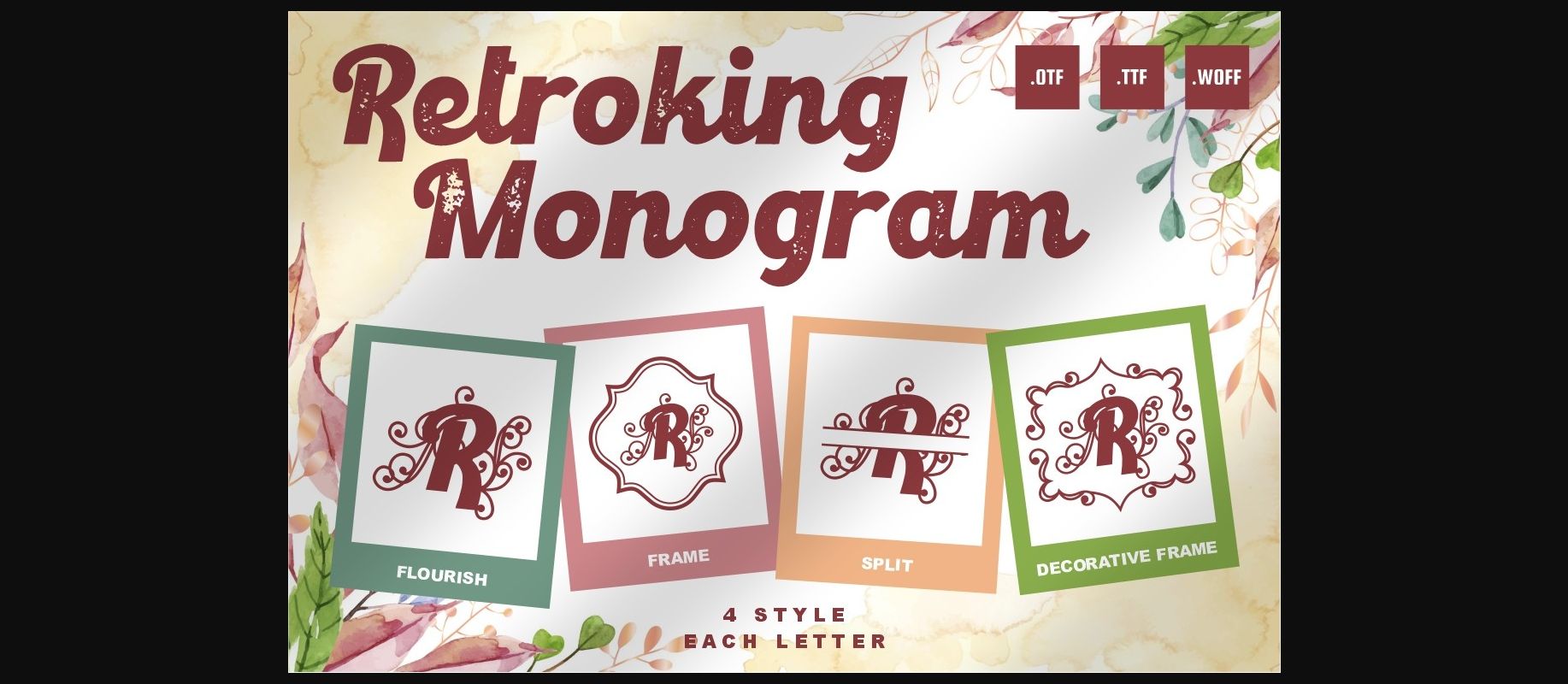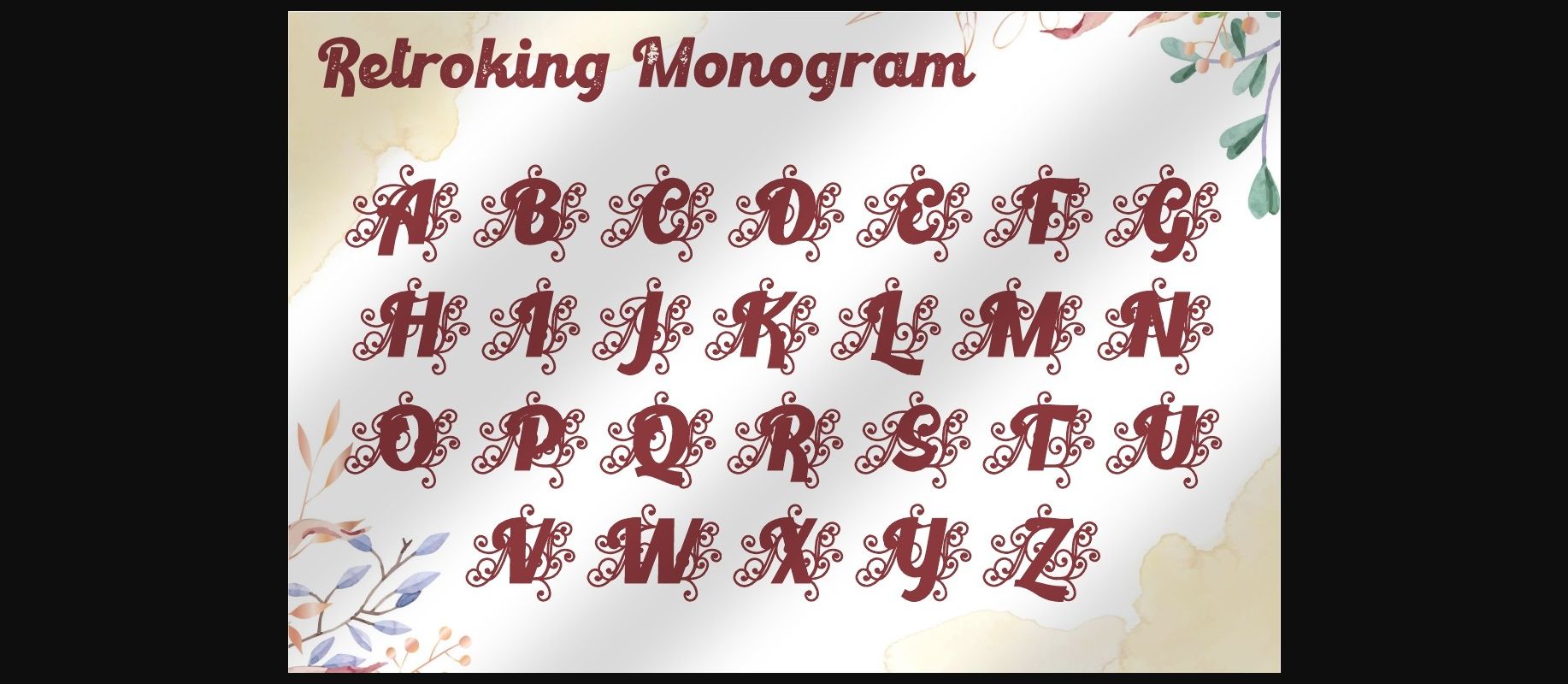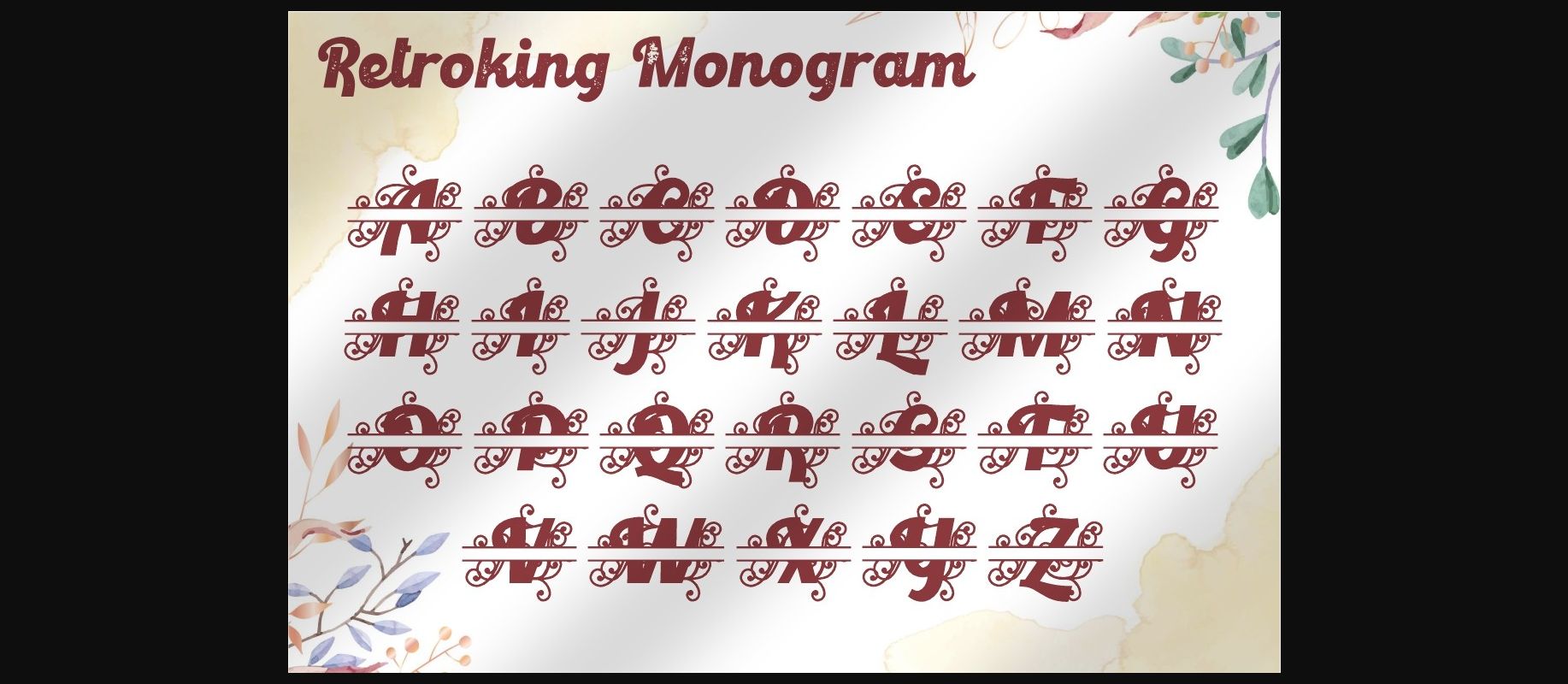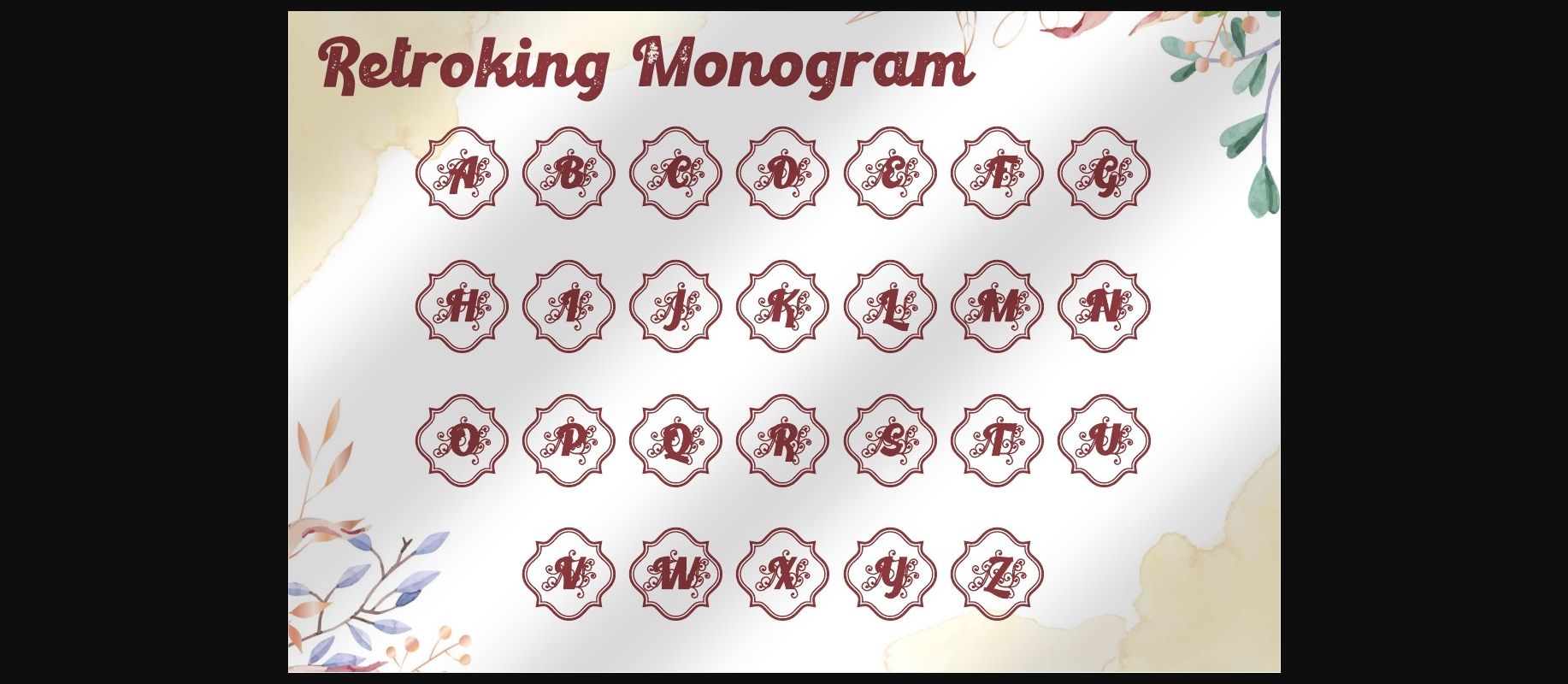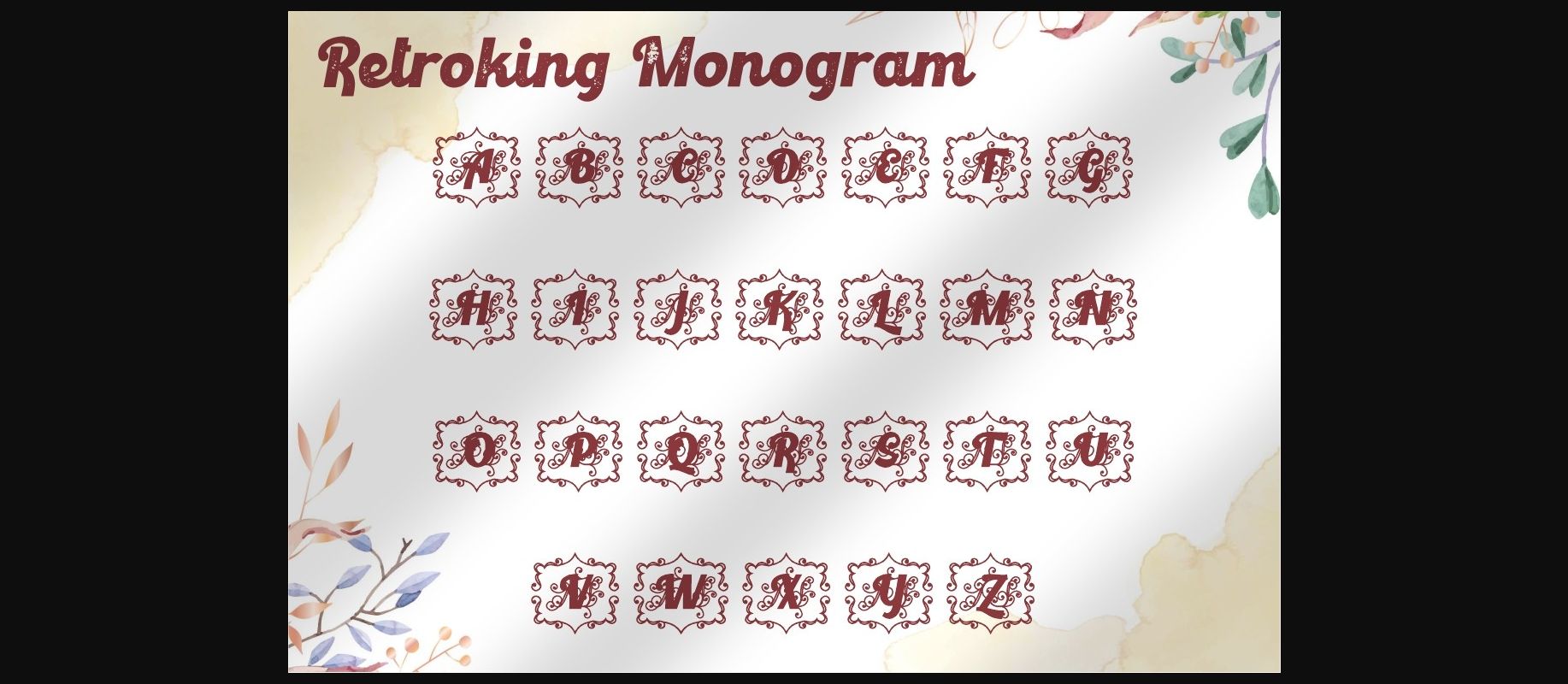
Retroking Monogram Font
About Retroking Monogram Font
Retroking Monogram is a thick letteredĀ decorative font. This font is neatly crafted and highly detailed. Whatever the topic, Retroking Monogram will be a wonderful asset to your font library, as it has the potential to enhance any creation.